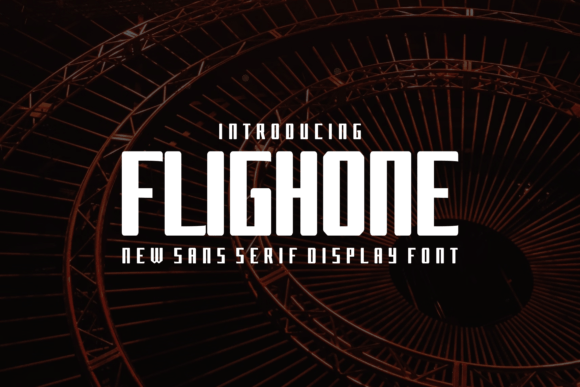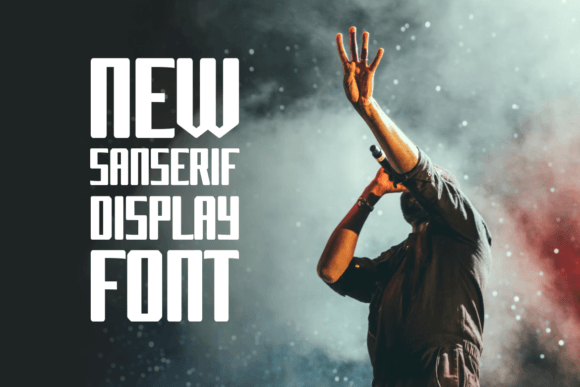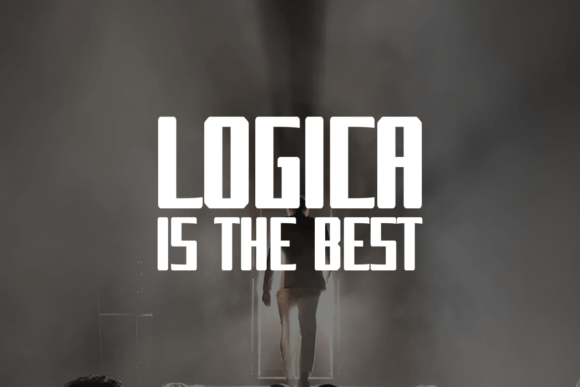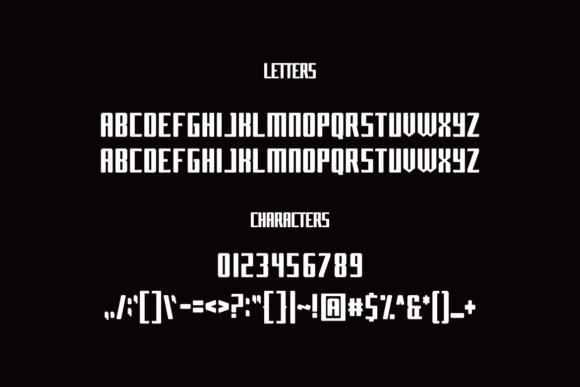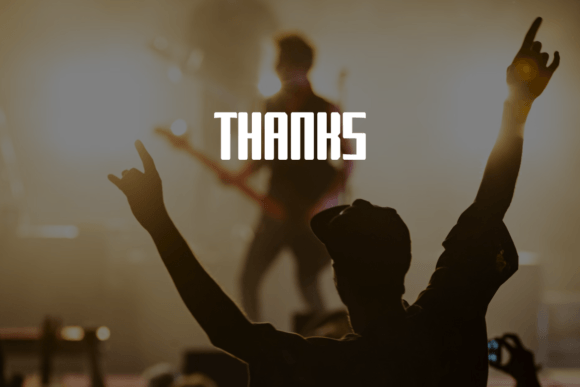
The Perfect Typography for a Fresh Look
Imagine you’re scrolling through your social media feed, and a brand’s logo catches your eye. The clean lines, the simplicity, and the overall professionalism of the design make you take a second look. You can’t help but wonder what font they used to create such an impression. This is where typography plays a crucial role in making a brand stand out.
Meet the Flighone Font, a modern sans serif font designed to make your content shine. With its clean and smooth design, Flighone Font is perfect for creating a fresh, professional look in logos, websites, and documents. As a designer, you’ll appreciate the simplicity of this font, which makes it easy to read and use in various mediums.
Flighone Font Key Features
- Font Family: Flighone is a sans-serif font family with 6 styles: Light, Regular, Medium, Bold, Extra Bold, and Black.
- Unique Characteristics: Flighone features a unique blend of modern and minimalist design elements, with clean lines, rounded edges, and a highly legible font face.
Flighone Font Review
Overall, I’d say Flighone Font is a solid addition to any designer’s toolkit. ✨
The font’s modern design and clean lines make it perfect for creating a sleek and professional look in digital products. ✨
Here are some of the things I like about Flighone Font:
- Wide range of languages supported
- Perfect for digital products, including apps and websites
- Works well with both dark and light mode
- Has a modern and sleek design
- Some characters may not be available in certain weights
- The font may not be as legible in smaller sizes
- Not as many stylistic sets available as some other fonts
- May not be suitable for print materials
Overall, I think Flighone Font is a great choice for digital designers looking for a clean and modern font. It’s easy to use and has a wide range of applications. With a little extra consideration for the limitations, I’d definitely recommend it to my fellow designers.
Tips for Getting the Most Out of Flighone Font
Here are some tips to help you get the most out of Flighone Font:
- Use Flighone Font for titles and headings to add a touch of elegance.
- Combine Flighone Font with other fonts to create a unique and visually appealing design.
- Experiment with different font sizes and styles to create a dynamic and engaging design.
Flighone Font is perfect for:
- Branding
Alternatives to Flighone Font
Open Sans is a clean and modern sans-serif font designed for digital interfaces. It’s highly legible and suitable for body text, headings, and captions. Use Open Sans when you need a neutral, approachable font for your designs.
Open Sans is more versatile and widely used compared to Flighone Font, making it a popular choice among designers. While Flighone Font has a more distinctive, handwritten feel, Open Sans provides a clean and professional look.
Lato is a sans-serif font with a strong, geometric feel. It’s ideal for headings, titles, and short blocks of text. Use Lato when you want to add a touch of sophistication and elegance to your designs.
Lato is more formal and structured compared to Flighone Font, making it suitable for corporate or luxury brands. While Flighone Font has a more casual, handwritten feel, Lato provides a sense of refinement and sophistication.
Montserrat is a sans-serif font inspired by urban typography. It’s highly versatile and suitable for a wide range of designs, from body text to headings and titles. Use Montserrat when you want to add a touch of urban grit to your designs.